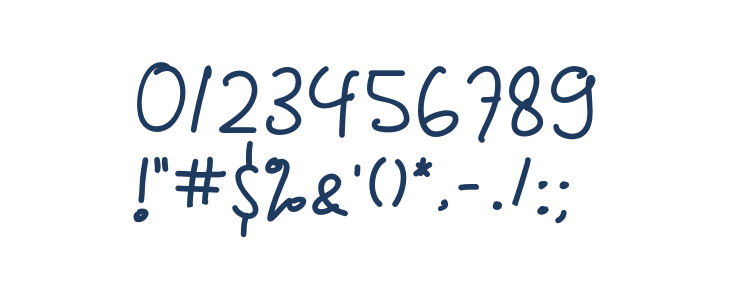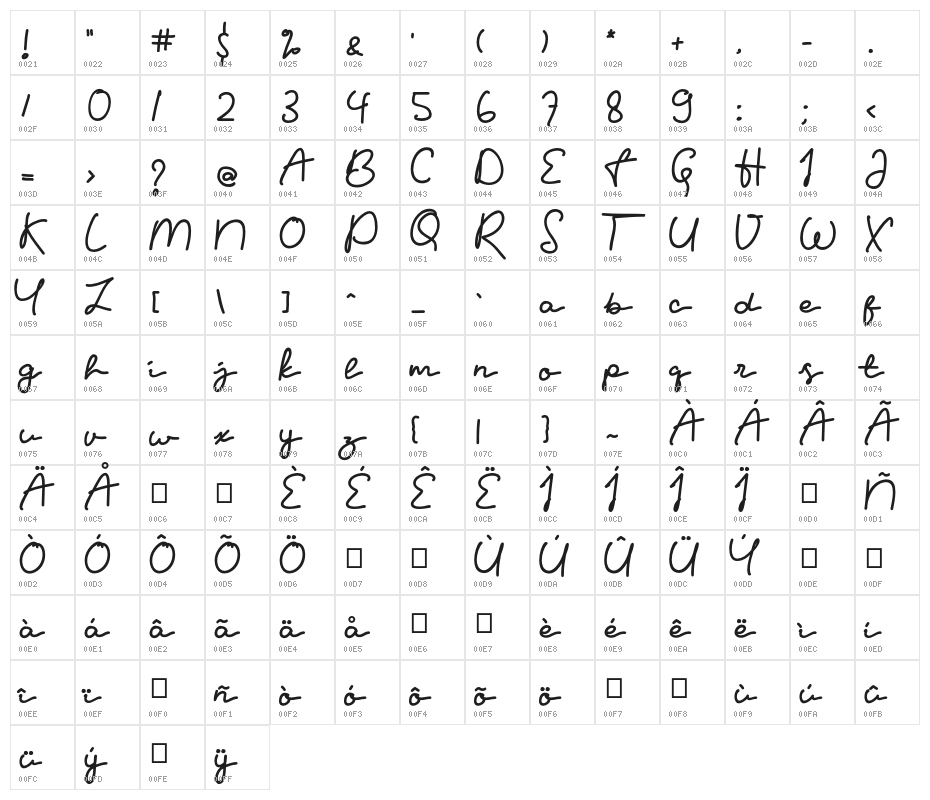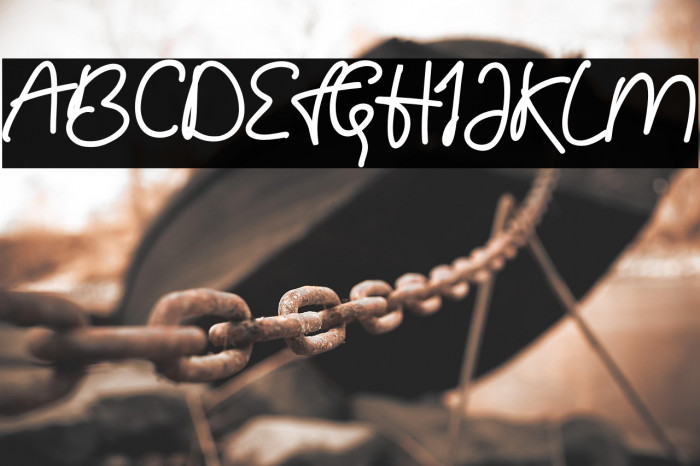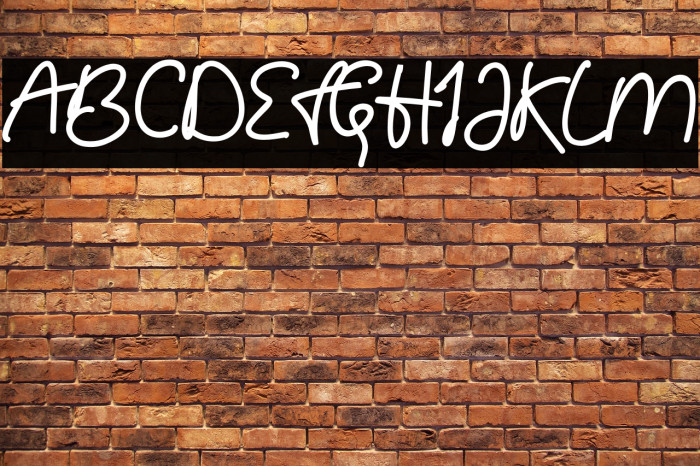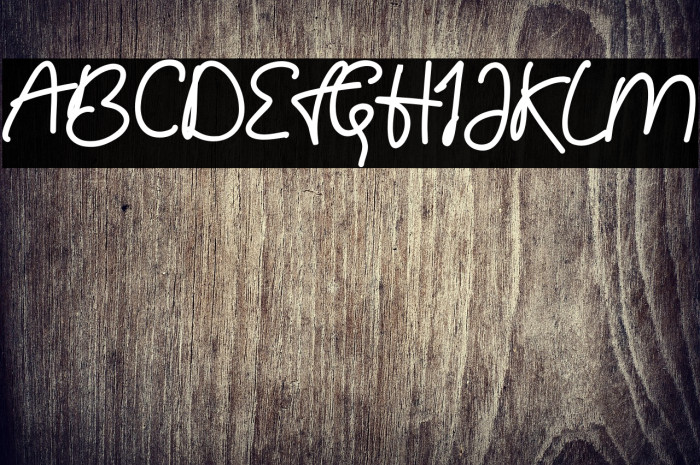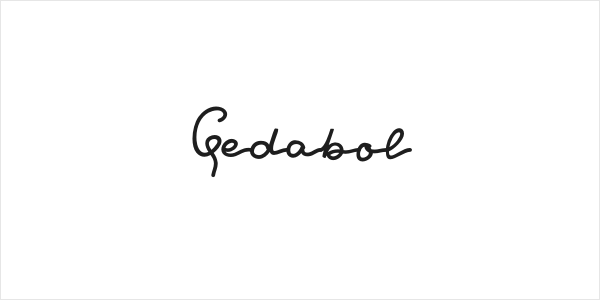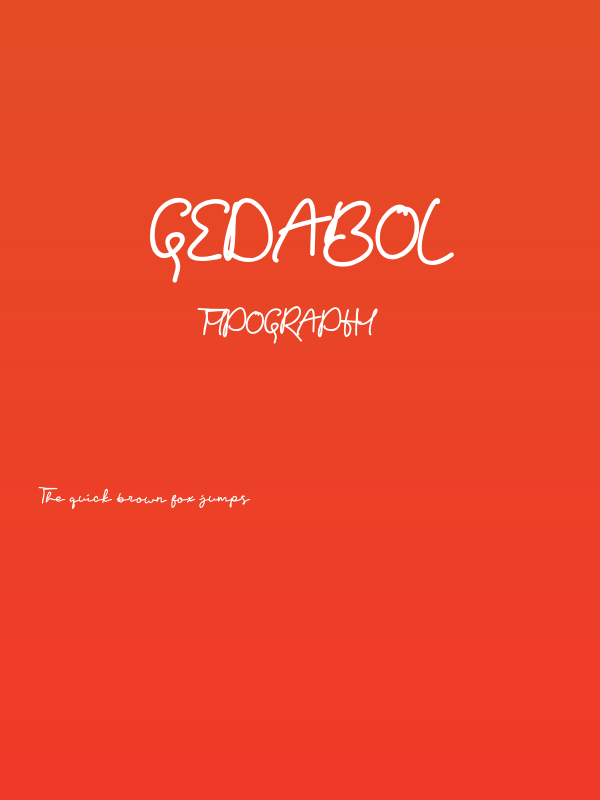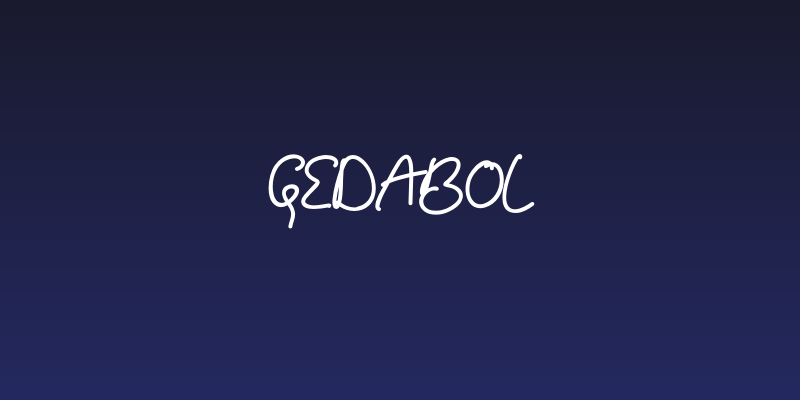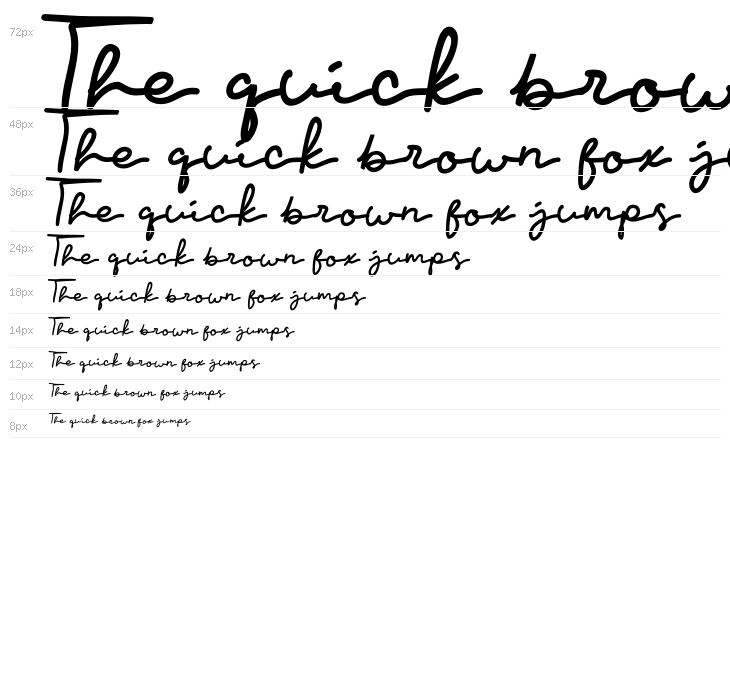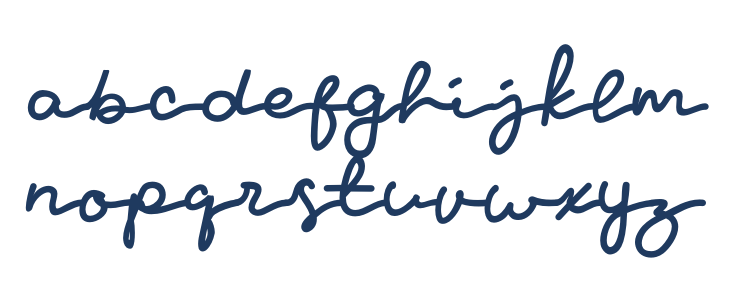
Gedabol Font
Gedabol Description
This font features a playful and casual handwritten style, characterized by its smooth, flowing lines and slightly irregular shapes. The uppercase and lowercase letters maintain a consistent stroke width, giving the font a cohesive look. The characters are slightly slanted, adding to the informal and relaxed appearance. The numbers and special characters follow the same style, ensuring uniformity across all elements. This font exudes a friendly and approachable vibe, making it suitable for projects that require a personal touch.
| Proposed Projects | Ideal for greeting cards, invitations, personal branding, and creative projects that require a friendly and informal touch. |